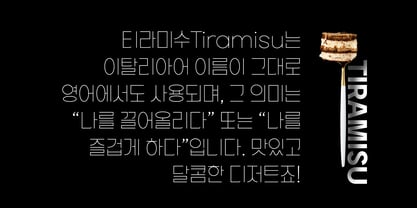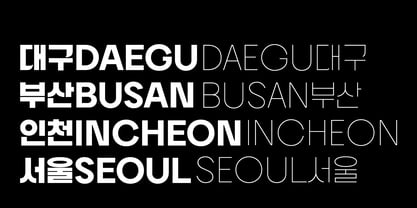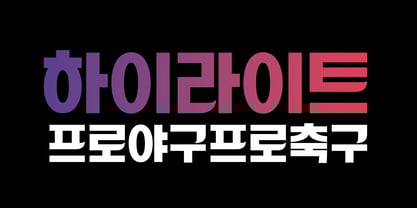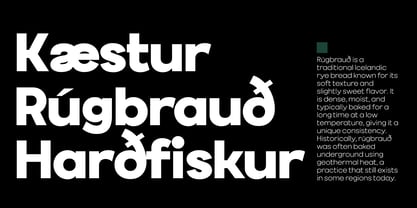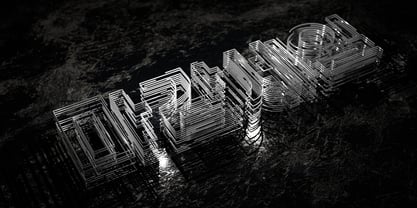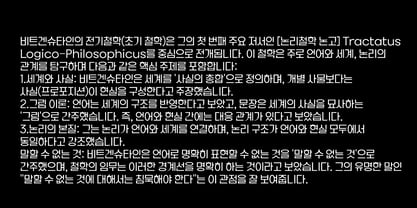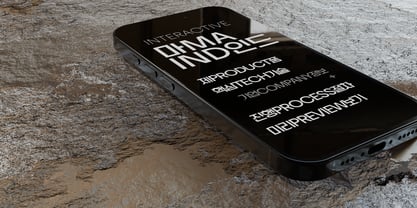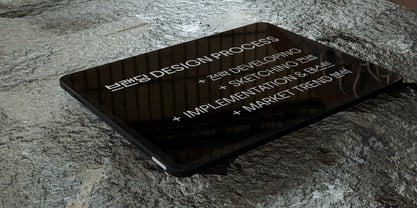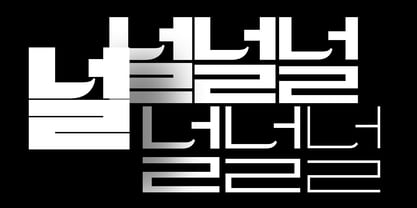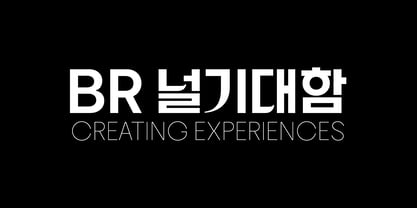
BR Beholding
The BR Beholding Font Family was designed by Ryul Davidson and published by Brenners Template. BR Beholding contains 7 styles and family package options. More about this family
BR Beholding font family maintains a simple and solid basic square frame, while adding variations of certain [Choseong] to create a fresh impact.
In addition, all letters, including Latin(English), Korean, Numbers, and Symbols, are designed with the same Metrics, so they maintain the same height.
It can be incorporated into various areas such as strong and unique headlines, branding designs, UX work, and presentation headings.
• Hangeul 2,780 glyphs / Latin 306 glyphs / Numbers 86 glyphs / Symbols and Punctuation 189 glyphs
Ryul Davidson, who was deeply engrossed in the analytic basis and interpretation of semiotics, tries to take a different approach to this through the original design of Glyphs. This is to quench the thirst for curiosity pursued by human nature beyond the standard of communication and understanding that Glyphs should have.Elegance cannot have its true value without guaranteeing its meaning and form. Our team, headed by Ryul Davidson, works under the motto of analytic design and interaction of communications.